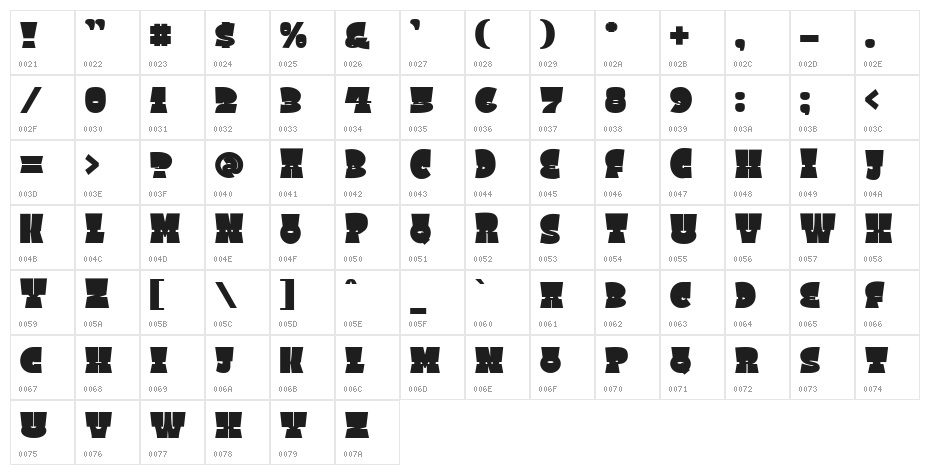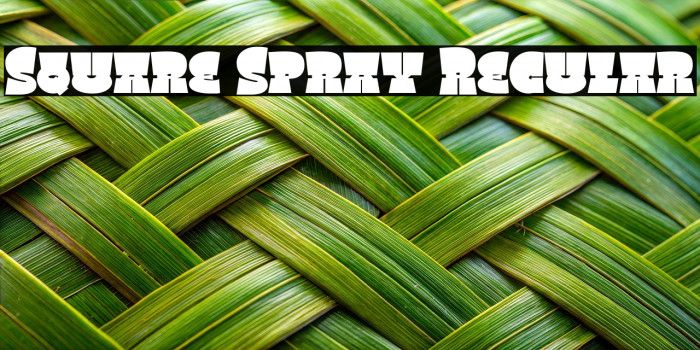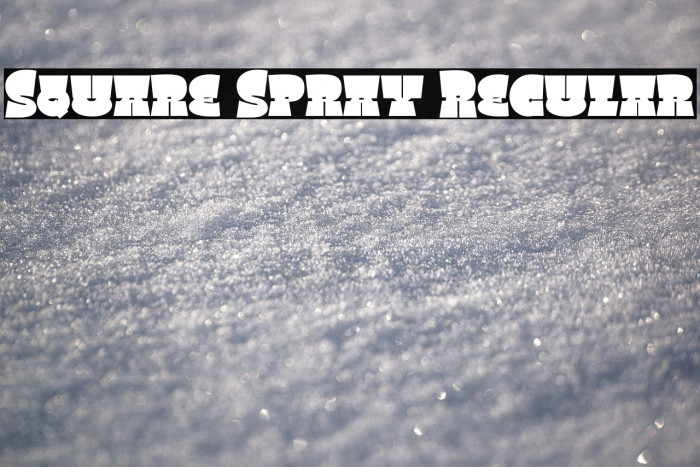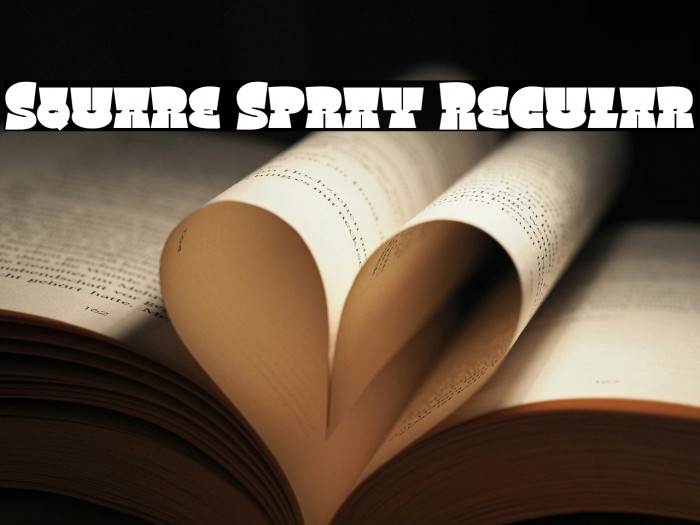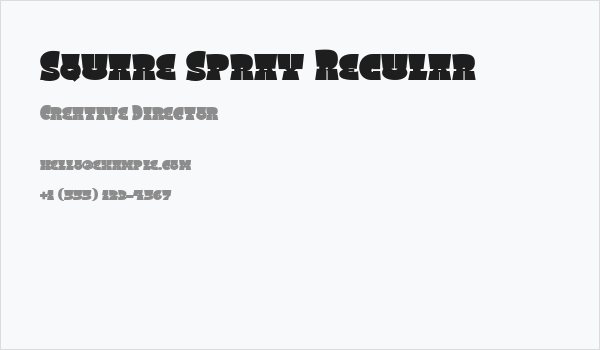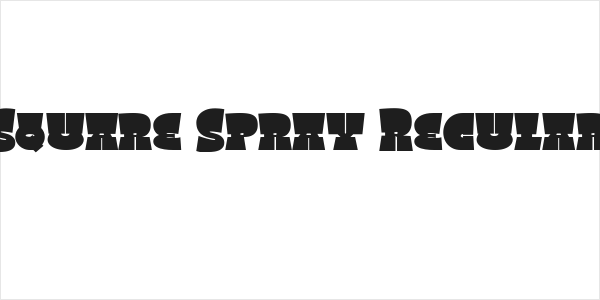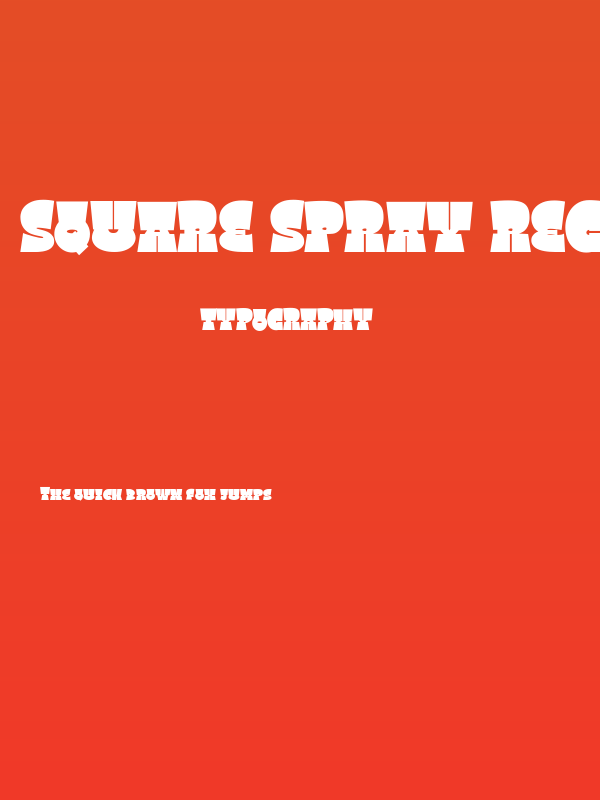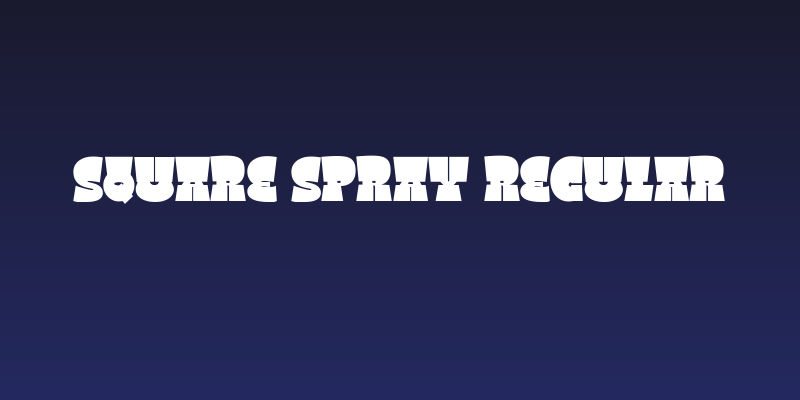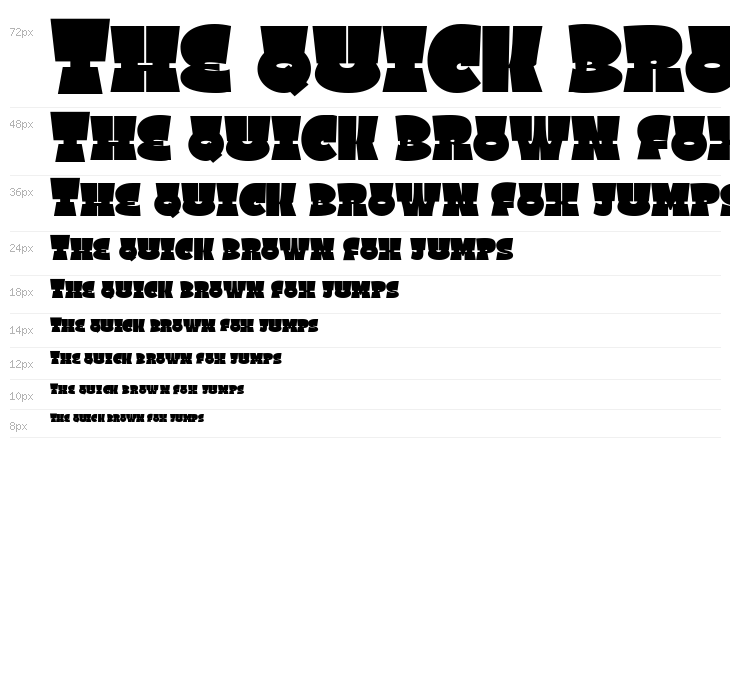
Square Spray Regular Font
Square Spray Regular Description
This font features a bold and impactful design with a distinct geometric style. Each character is constructed with sharp angles and a blocky appearance, creating a sense of strength and modernity. The uppercase and lowercase letters maintain a consistent width, contributing to a uniform look across the text. Numbers and special characters follow the same design principles, ensuring a cohesive visual experience. The font's unique style makes it stand out, making it ideal for projects that require a strong visual presence.